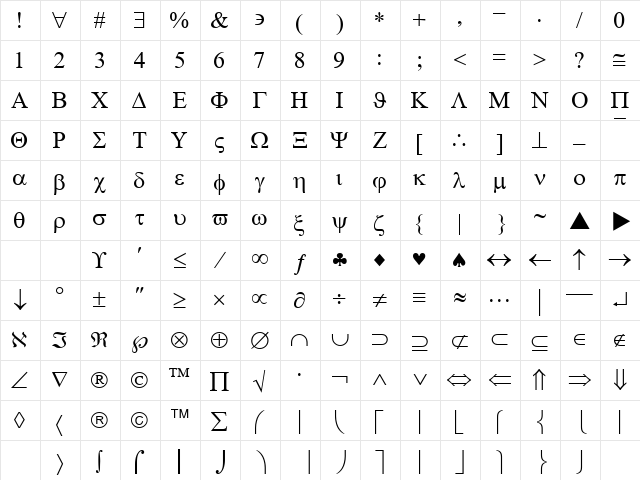
TWA Symbol Regular
Design Context for TWA Symbol Typeface
TWA Symbol is a composed and adaptable typeface that performs quietly and consistently across a wide range of design contexts.